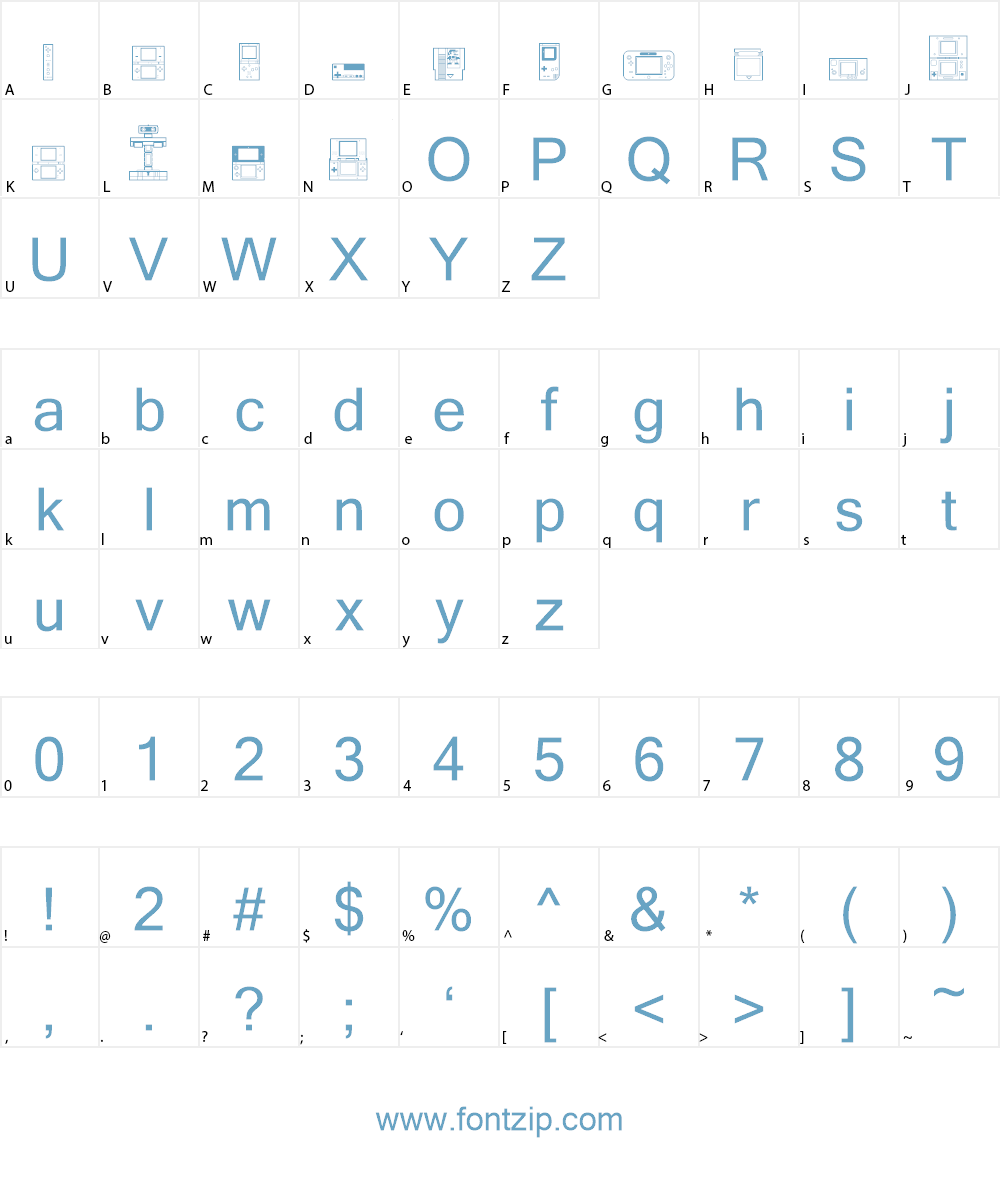
Several high quality (for Fontstruct) Nintendo hardware dingbats.
Contains these devices:
-Wii Remote
-Nintendo DSi
-Game Boy Advance SP
-FamiKon controller
-NES gamepak
-Game Boy Classic
-Wii U GamePad
-Game Boy Classic gamepak
-Game&Watch "Ball"
-Game&Watch "Donkey Kong"
-Nintendo DS Lite
-R.O.B.
-Nintendo 3DS
-Nintendo DS Classic
NOTE! This character set is INCOMPLETE! I'm still working on this and will be adding to it occasionally so check back every so often ;) ALSO! For some reason, ROB, the 3DS and DS classic aren't showing up in the character map but they're there, honest!
I'm actually running out of Nintendo hardware that I can draw in Fontstruct (without making it stupid-huge that is) so I might have to diversify into game sprites or other kinds of electronics.